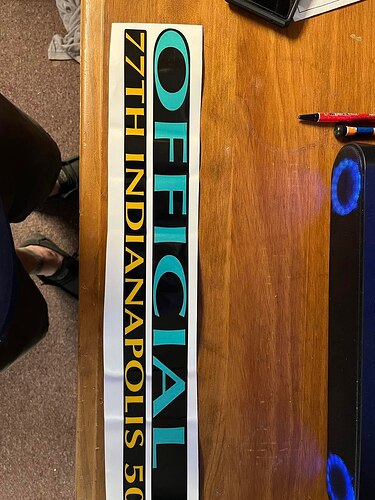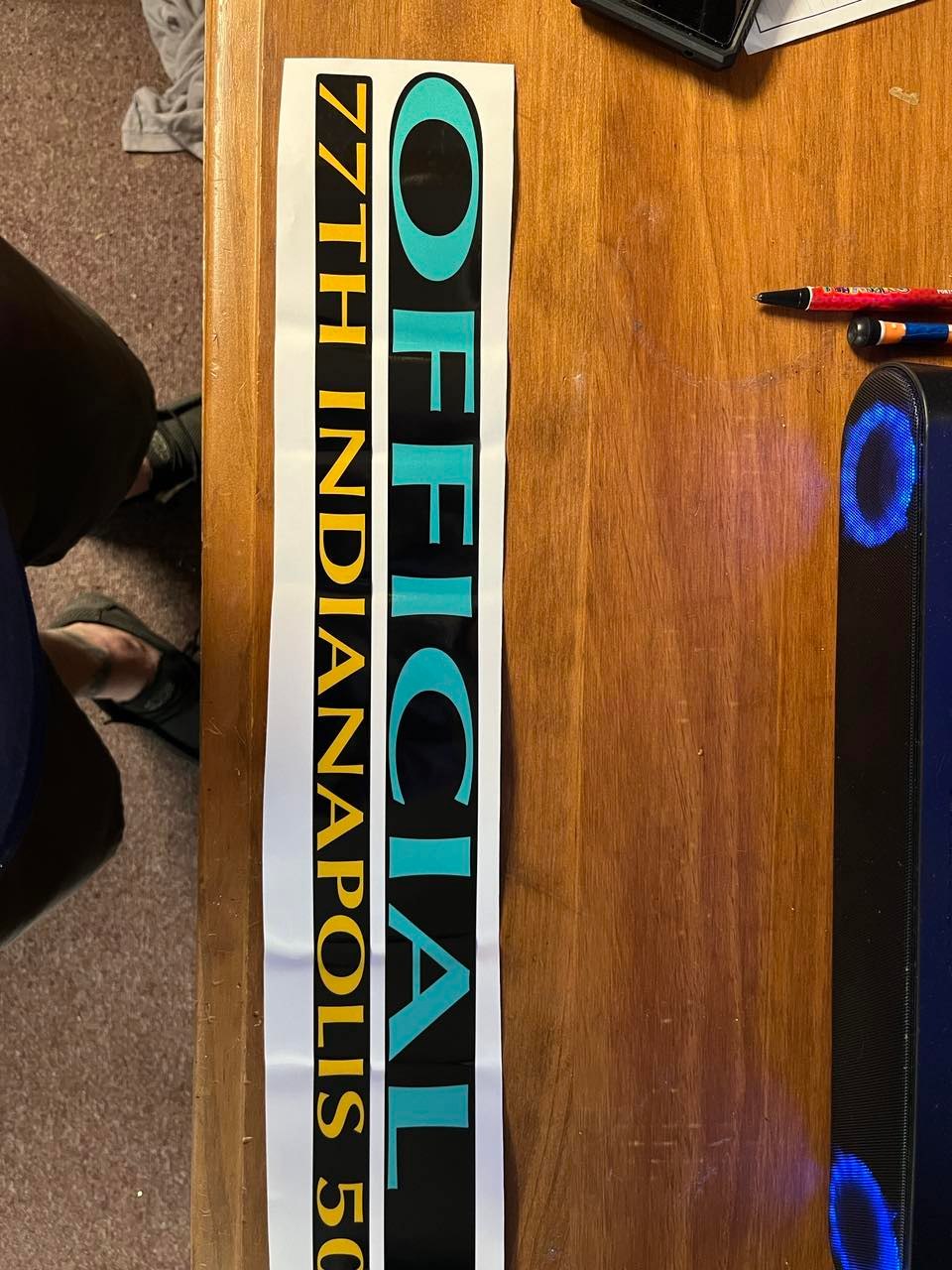
Anyone know this font. I have some close but
Just off by a little. Thanks for trying. This is a very expensive truck. Has to be exact.
It is definitely Optima Demi or Bold. You have to fiddle with the actual extended width, which has been manually stretched. All you have to do is find out how much by trial and error!
I have several versions of Optima; this is Optima Bold. I superimposed it on top of the photo and matched them.
top line is manually widened to 220%
second line is manually widened by 160%